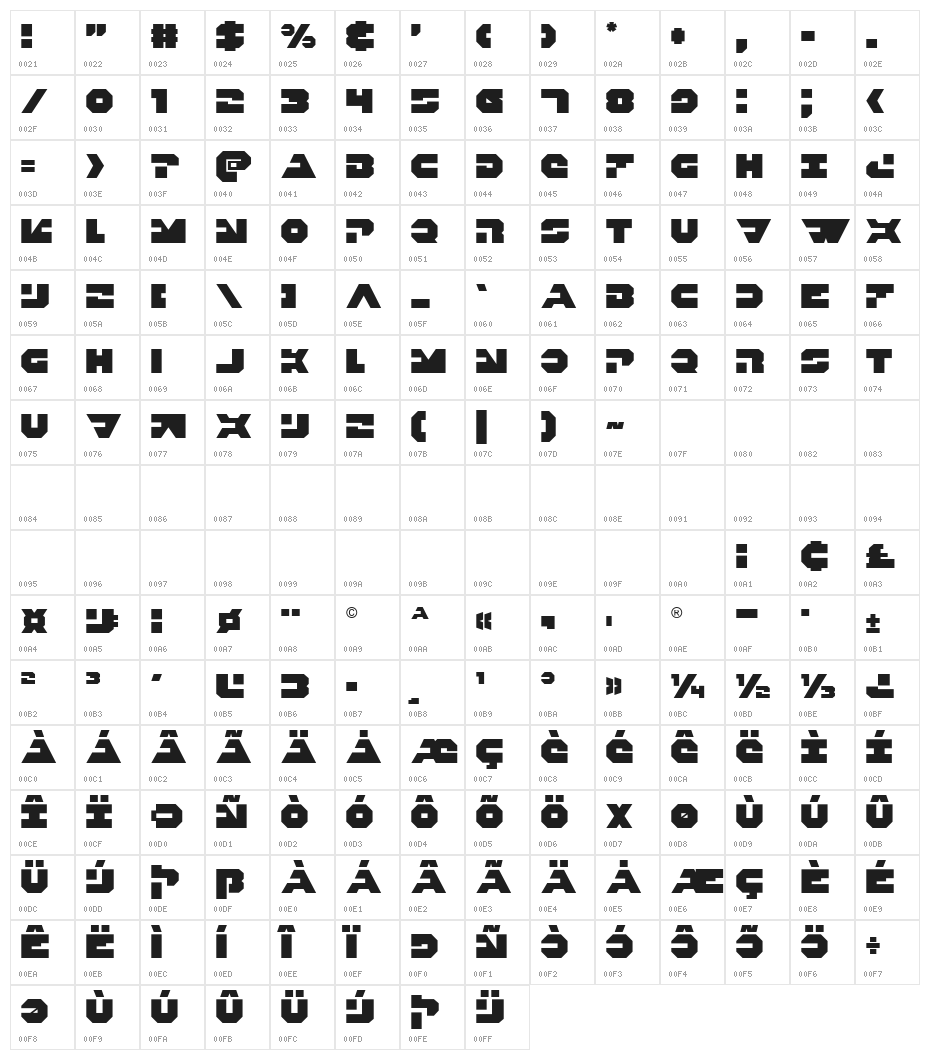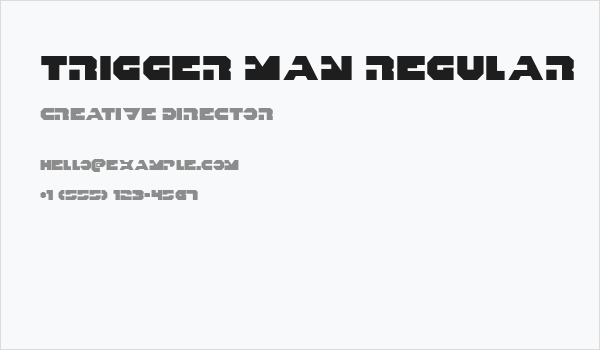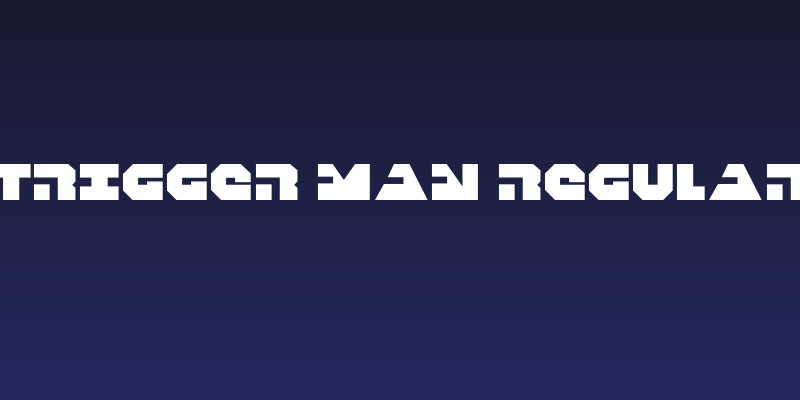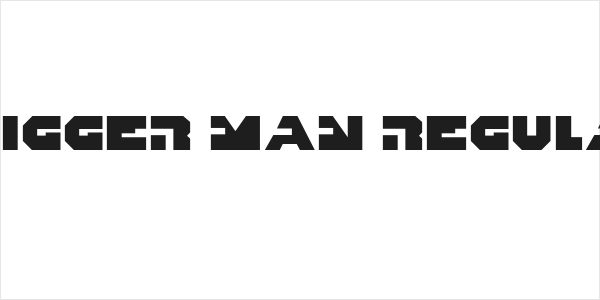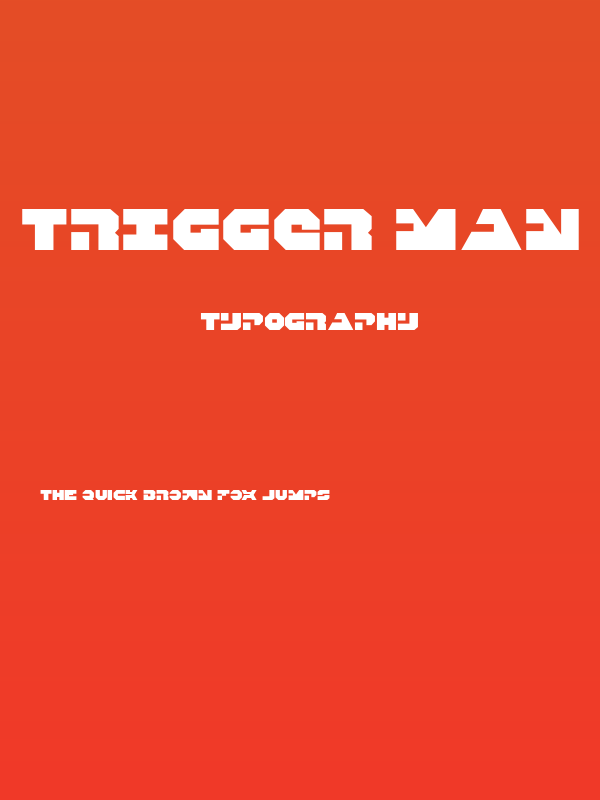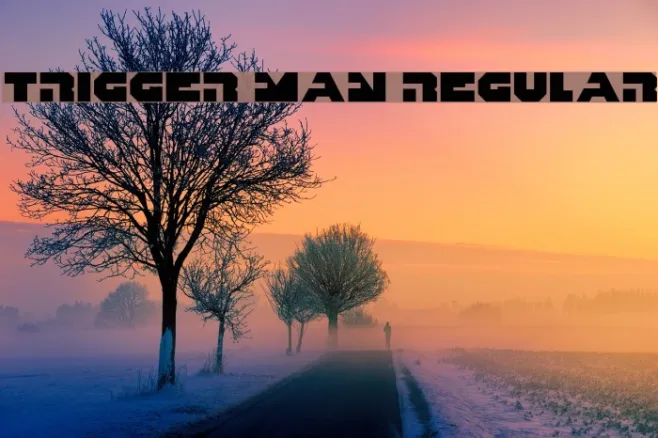
Trigger Man Regular Font
Trigger Man Regular Description
This font features a bold, geometric design with a distinctly modern and futuristic aesthetic. The characters are constructed with sharp angles and straight lines, creating a sense of strength and impact. The uppercase and lowercase letters maintain a consistent style, emphasizing uniformity and cohesion. The numerals and special characters follow the same angular theme, ensuring a cohesive look across all glyphs. This font's unique style makes it ideal for projects that require a strong visual presence.
| Proposed Projects | Ideal for branding, posters, video game graphics, and any project requiring a strong, impactful visual style. |